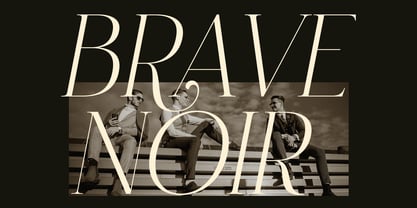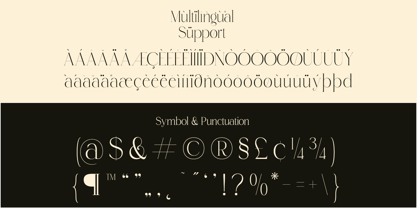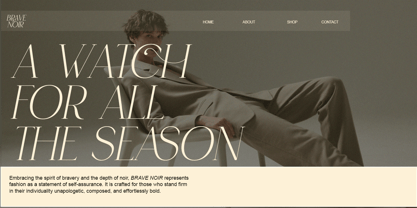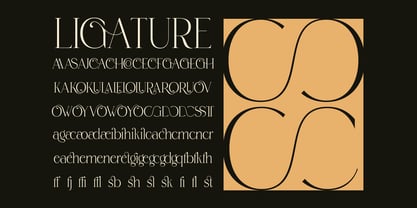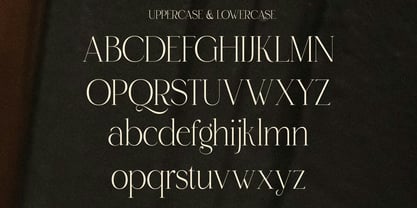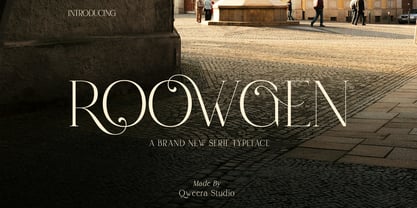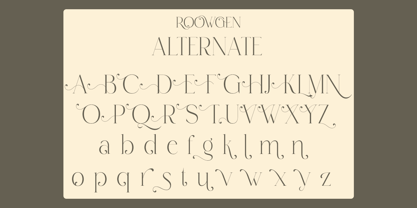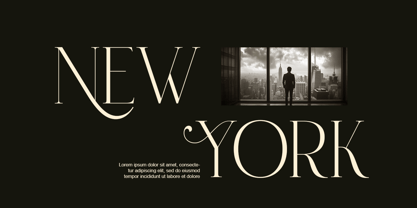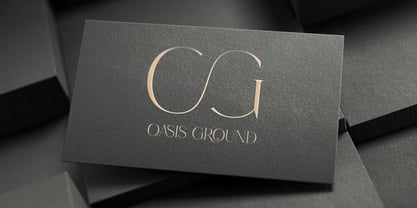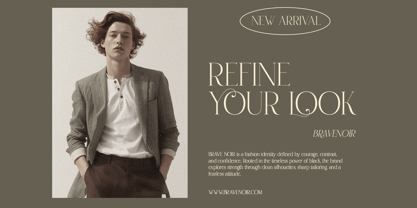
Roowgen
The Roowgen Font Family was designed by Idhham Cholid Rikzano Yahya and published by Qweera Studio. Roowgen contains 2 styles and family package options. More about this family
Roowgen is a modern elegant swash serif featuring smooth curves and refined contrast. Designed for branding and editorial typography, it delivers sophisticated serif styling with modern elegance. With alternates, ligatures, and multilingual support, Roowgen offers flexible typography for both print and digital applications. Ideal for designers seeking elegant luxury serif typography. Features Swash alternates Ligatures Multilingual support Professional kerning Regular & Italic Specifications Language Support: Western, Central Europe Features: Alternates, Ligatures, Swash Recommended For Luxury branding, editorial typography, packaging design, fashion identity, boutique branding